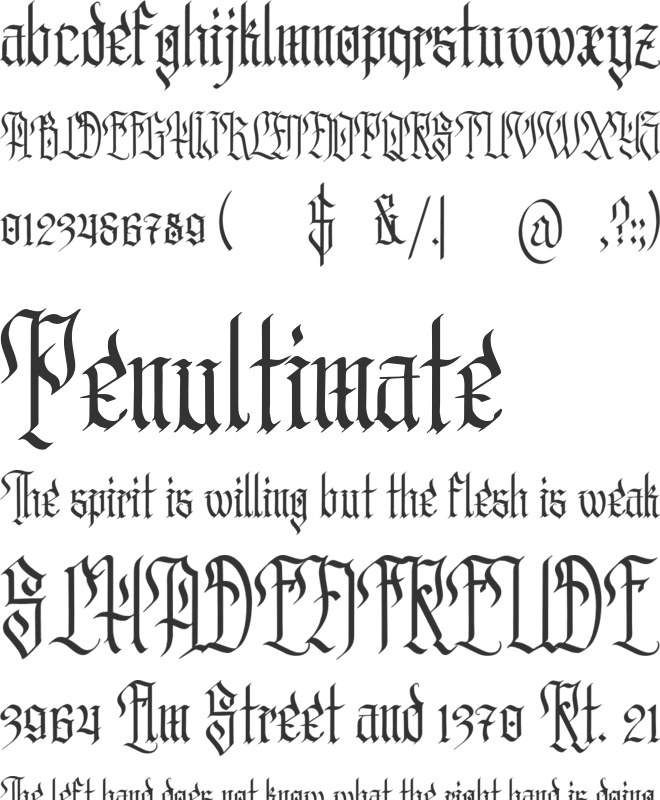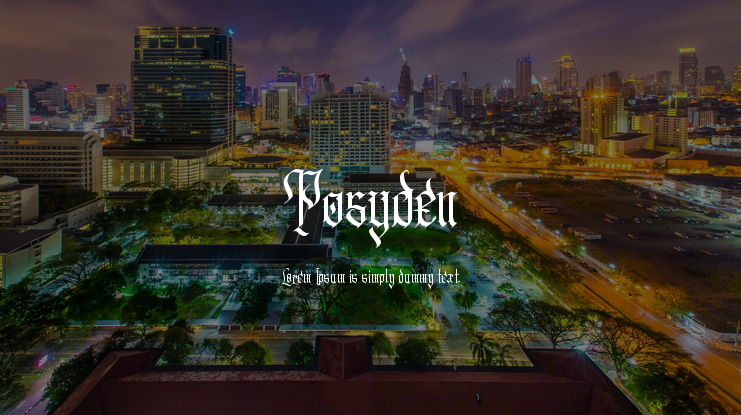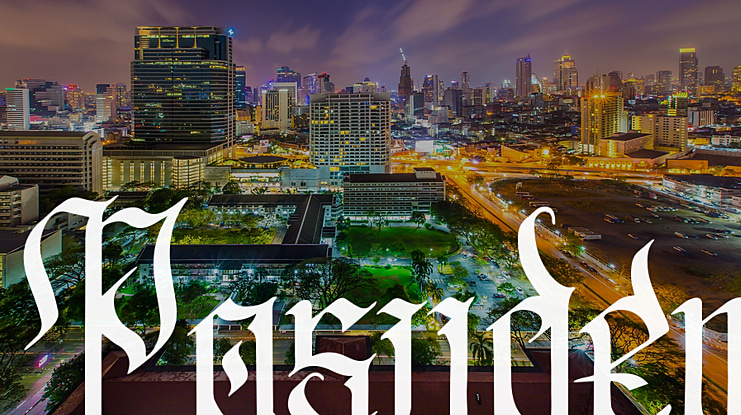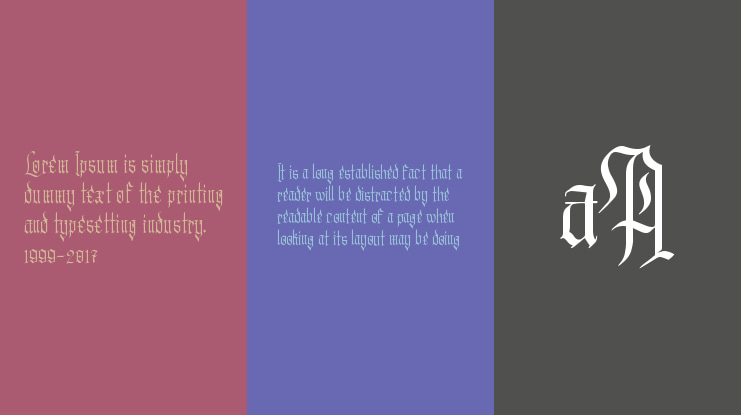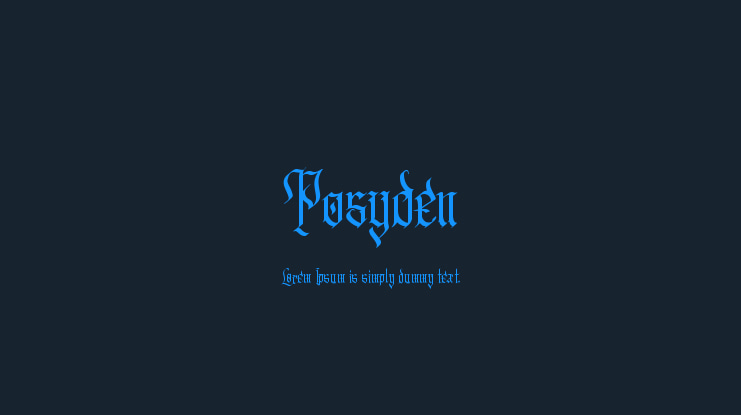
Posyden Font
Eric Kurniawan & I Made Meiada
Introducing the hand drawn black letter font “Posyden”. For those of you who are need a touch of classic old English vibes from 17th century for your designs, this font was made just for you!